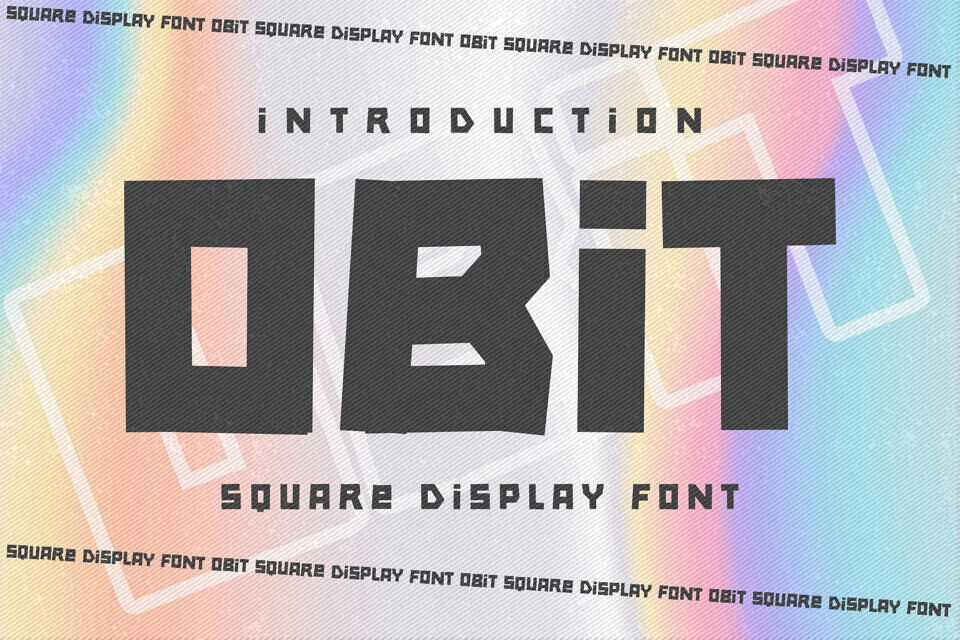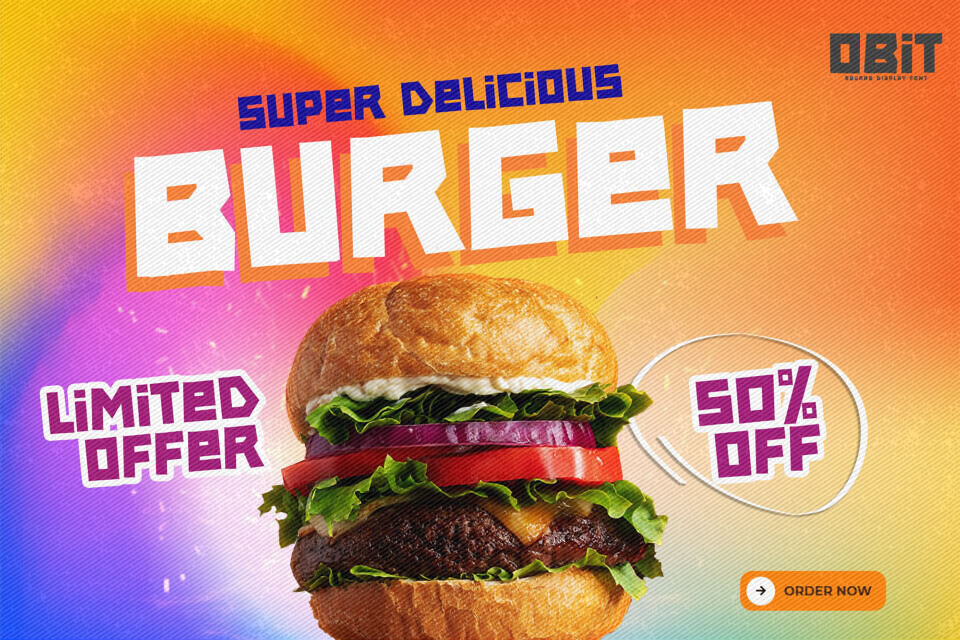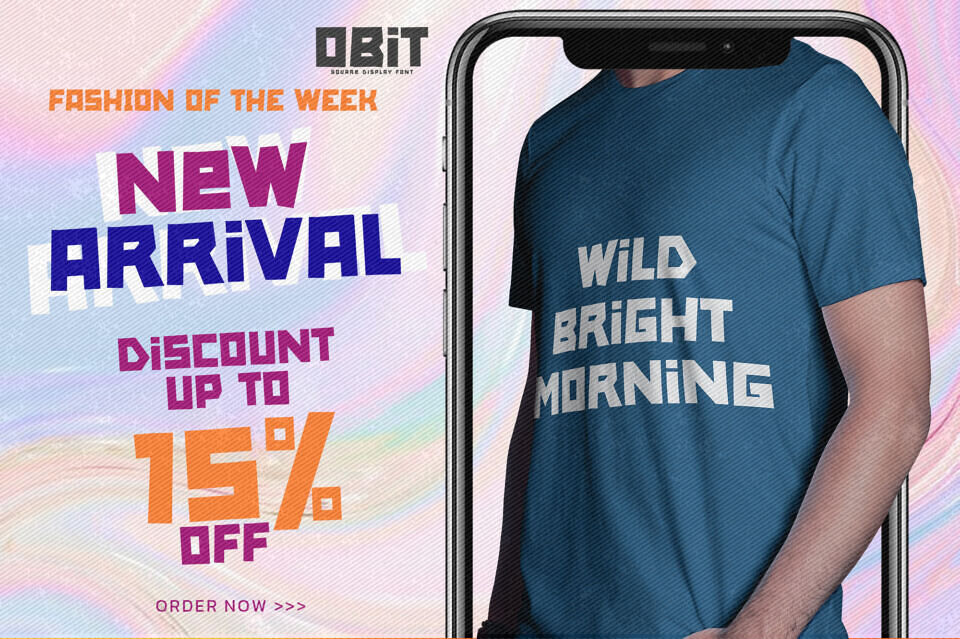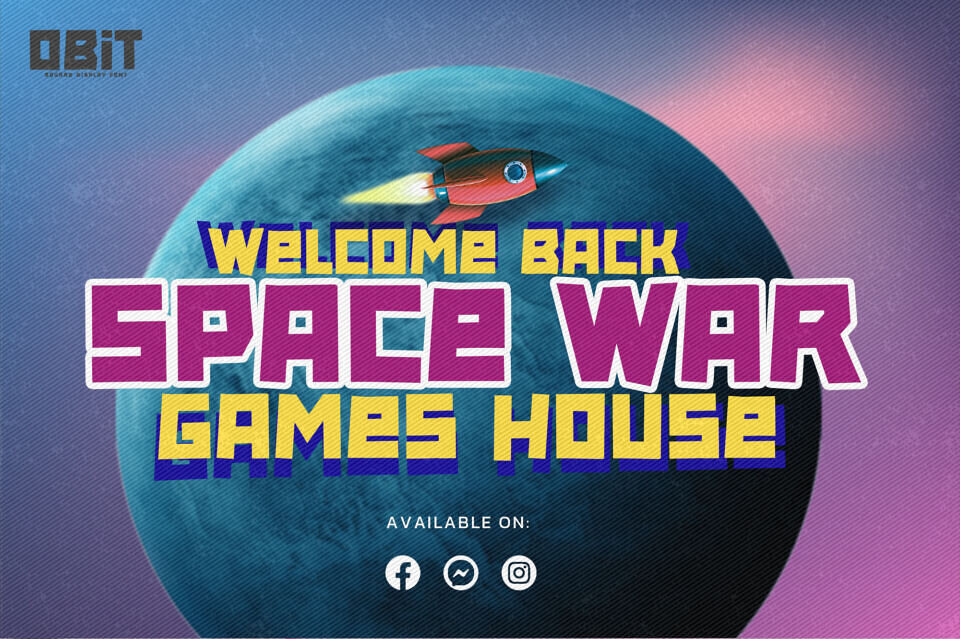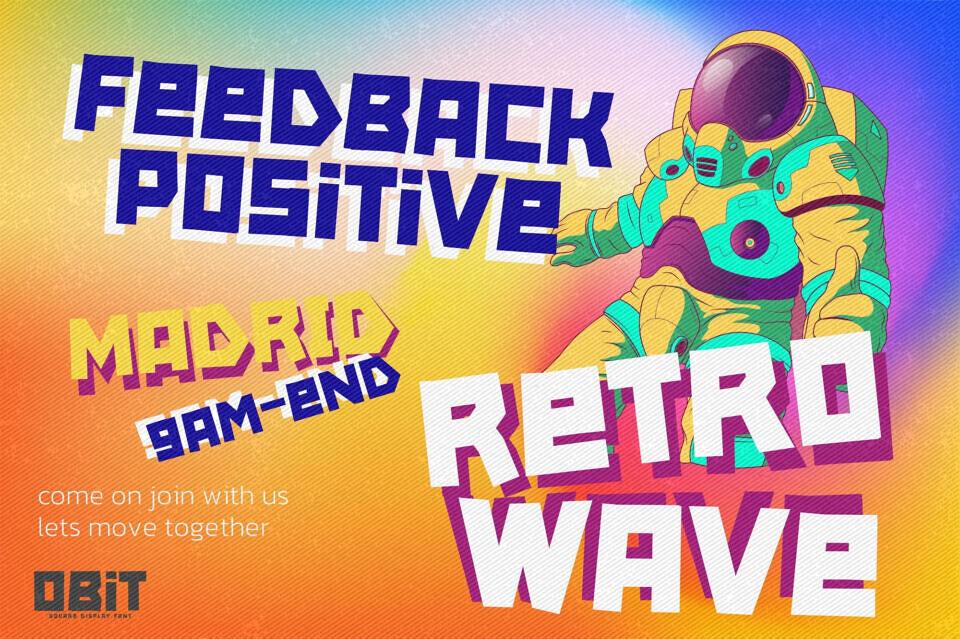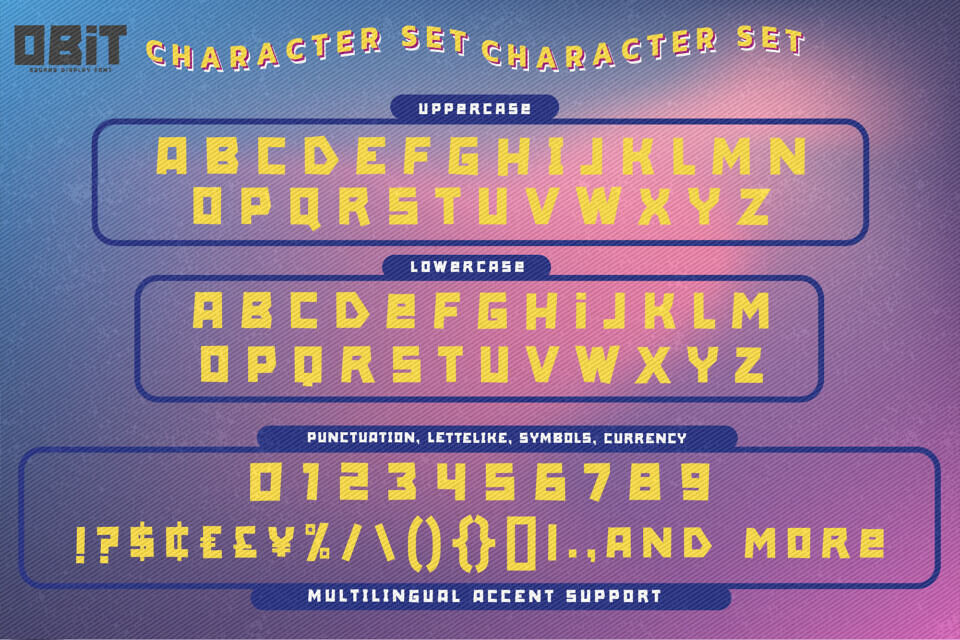
The OBIT font offers a modern, casual style with a touch of drama and retro. Its quick, handwritten feel makes it perfect for adding a fun, authentic touch to various projects, including labels, posters, and DIY designs.
Suitable for a range of uses, from branding and packaging to greeting cards and photography overlays, OBIT brings a unique and natural look to any design. Its versatility and cool characteristics make it an excellent choice for many creative applications.